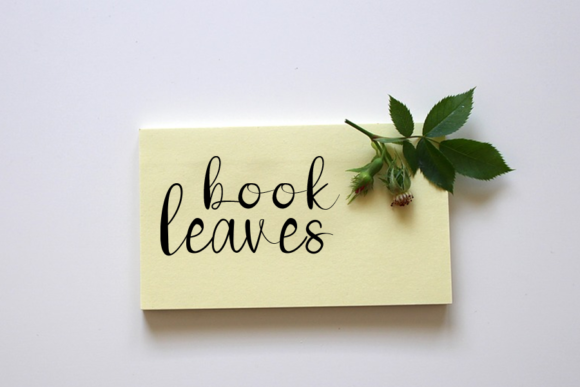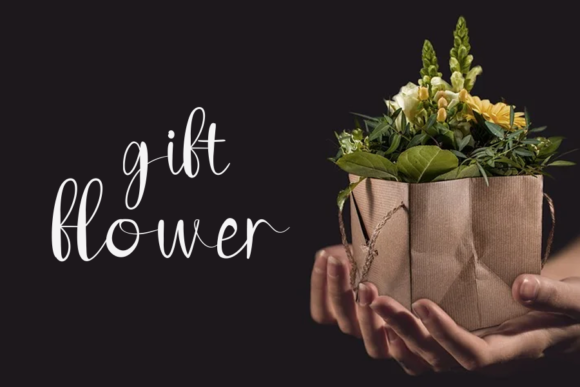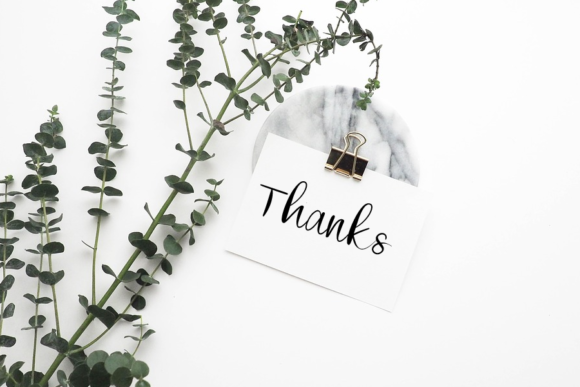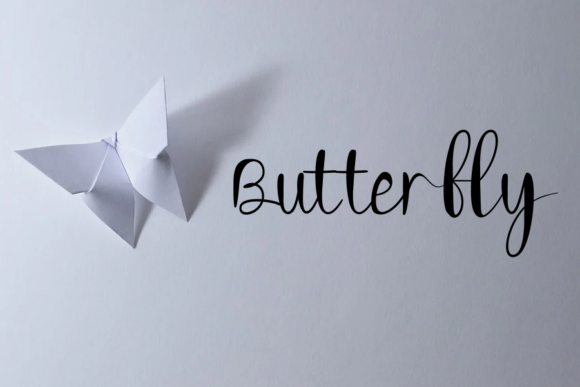
Simple Signature Font
About Simple Signature Font
Simple Signature is a dainty, genuine and cursive handwritten font. This gentle font will look gorgeous on a variety of design ideas. It will add a joyful and romantic touch to each of your projects!